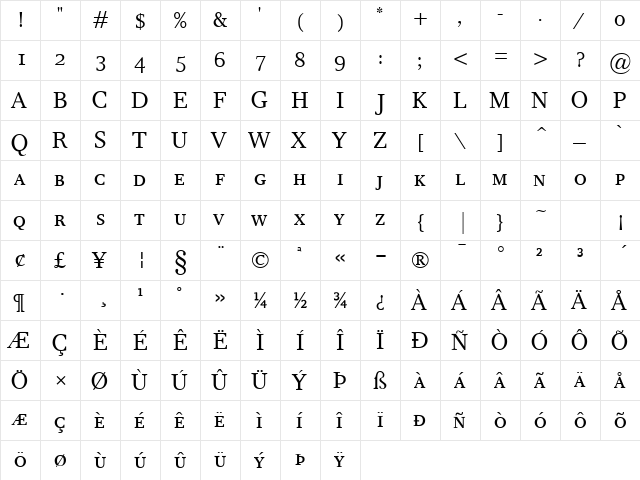
Res Publica SC Regular
Design Context for Res Publica SC Typeface
Res Publica SC takes a measured approach to typography — its balanced proportions and neutral character make it a reliable workhorse for both digital and print work.